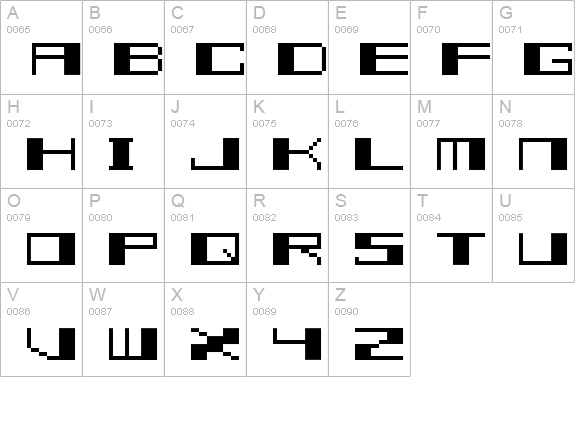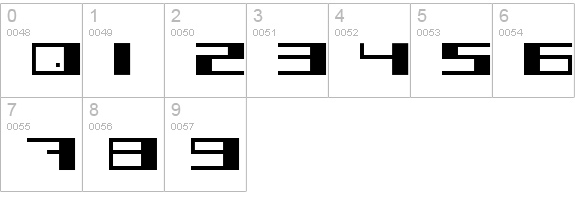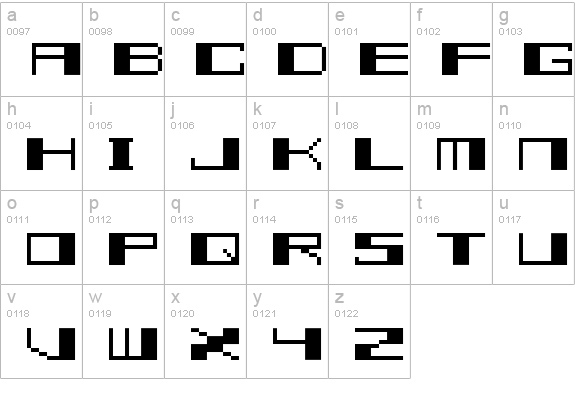
TECNO STRESS Font Details
TECNO STRESS font is a mesmerizing display font that captures the essence of modern technology and futuristic design. With its sleek and edgy letterforms, this font exudes a sense of energy and innovation. The distinctive angular shapes and sharp edges create a bold and dynamic appearance, making TECNO STRESS font perfect for bringing a futuristic touch to any design project. This font is not only visually striking but also highly versatile. It is ideal for headlines, logo designs, posters, social media graphics, and any other creative endeavor that requires a touch of contemporary sophistication. Whether you want to convey a sense of cutting-edge technology, a futuristic vision, or simply add a touch of modernity to your designs, TECNO STRESS font will undoubtedly make a statement. The best part is that TECNO STRESS font is available for free download at FontsMarket.com. This means that you can easily access and utilize this captivating font without any cost. With just a few clicks, you can enhance your designs and captivate your audience with the sleek and futuristic aesthetic of TECNO STRESS font. So why wait? Download TECNO STRESS font today and take your design projects to new heights of creativity and innovation.